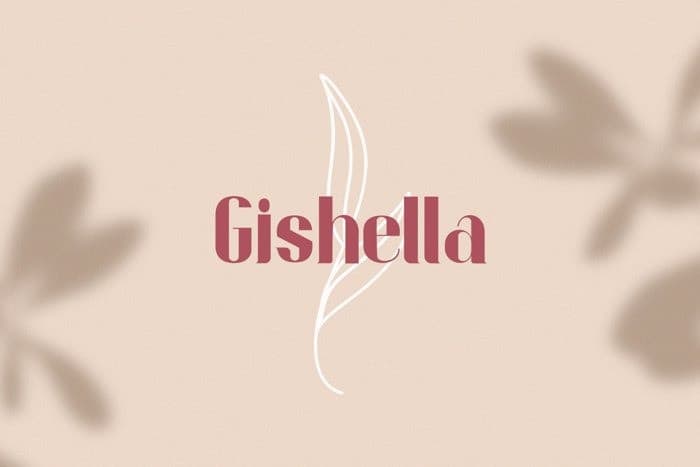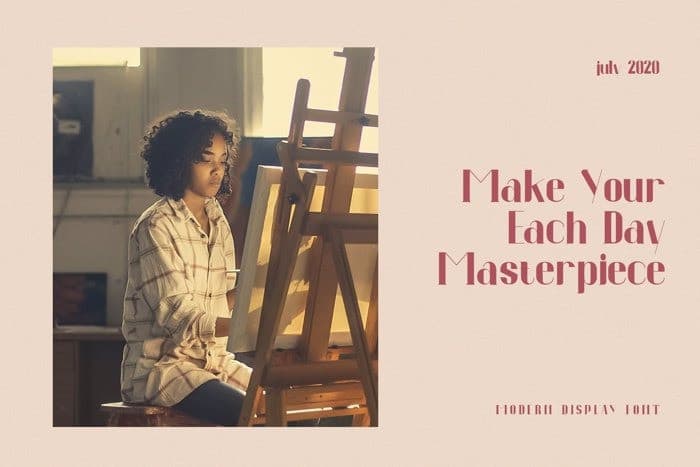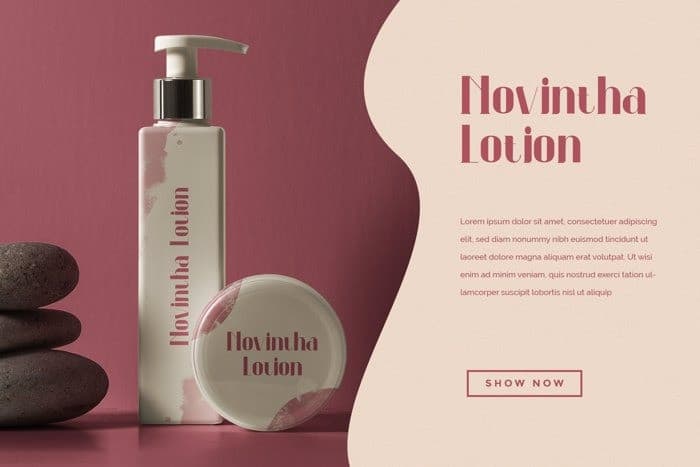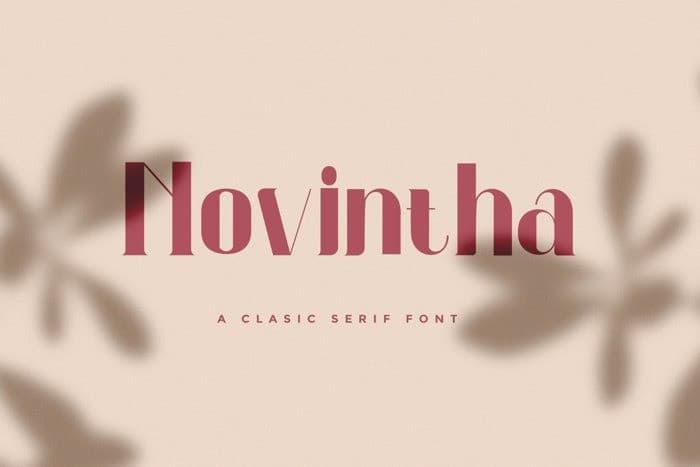
Novintha Serif Font
Introducing Novintha Serif Font– sharp & strong serif typeface. Inspired by wide fonts, Novintha is designed to look strictly and authentically in logos, on signboards, in fashion magazines. It’s designed and shared by Rantautype. The Modern design of typeface will make your design more powerful. perfect for your up coming projects. So, The font is suitable for any project like web, signage, corporate as well as for editorial design and many others.